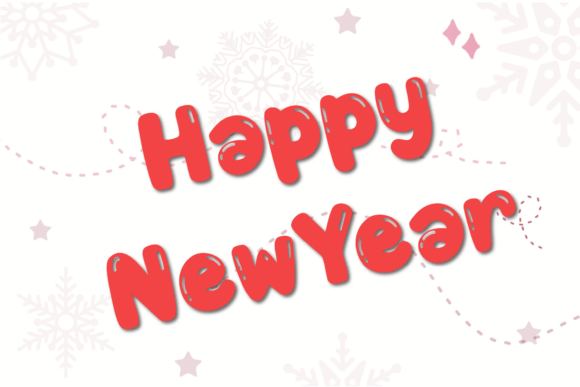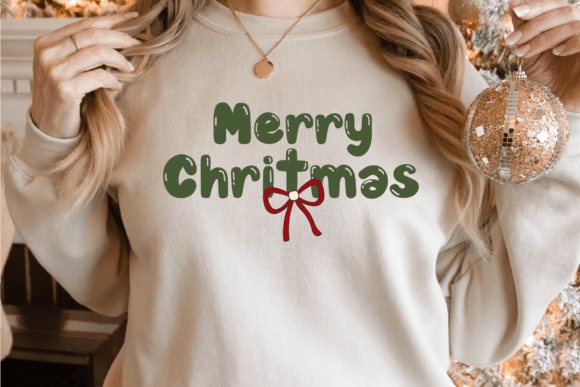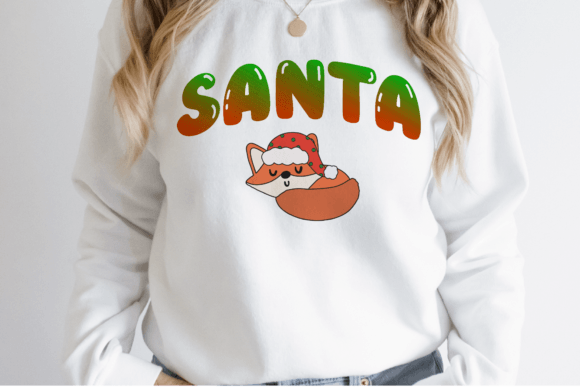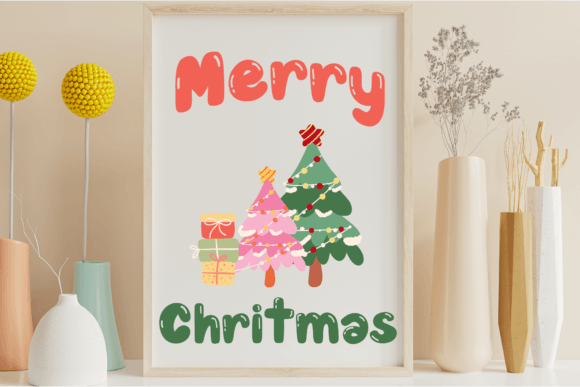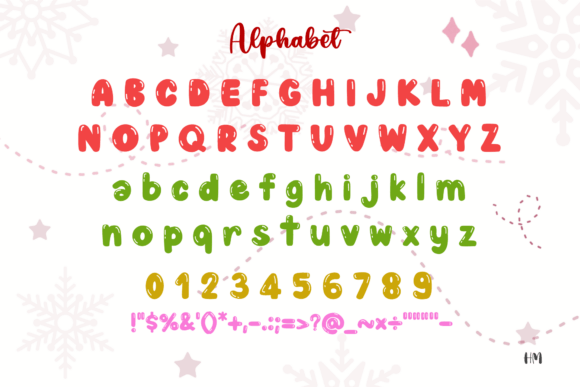
Introduction to Christmas Bookish Font
As a designer, you’ve probably found yourself stuck on a creative project, searching for the perfect font to bring your vision to life. It’s a moment we’ve all been there – staring at a blank canvas, trying to conjure up the perfect combination of style and substance. For me, that moment often comes during the holiday season, when I’m working on festive designs that capture the magic of Christmas. That’s when I discovered the Christmas Bookish Font – a game-changing resource that’s taken my designs to the next level.
With its unique blend of high-quality, handwritten, display, and decorative styles, the Christmas Bookish Font is a design treasure trove waiting to be explored. Whether you’re looking to create eye-catching invitations, logos, posters, or other festive projects, this font is sure to add a touch of holiday cheer to your work.
Key Features of Christmas Bookish Font
- High-quality design resource ideal for creative projects, such as holiday greeting cards, gift tags, and book covers.
- Unique, hand-drawn design with a transparent background, allowing for seamless integration into any design project.
- Includes a range of festive characters and symbols, perfect for adding a touch of holiday cheer to any design.
Honest Review: Christmas Bookish Font
- High-quality font design that captures the essence of Christmas
- Transparent background, making it easy to layer over other design elements
- Wide range of applications, from digital to print
- Perfect for book covers, invitations, and social media graphics
- Only available in a single font style (no variations)
- No additional characters or glyphs
- Not suitable for complex or multi-layered designs
Overall, I’m impressed with the Christmas Bookish Font. Its unique design and transparent background make it a valuable resource for designers. While it may not be perfect for every project, it’s a great addition to any design library. ✨
Tips for Getting the Most Out of Christmas Bookish Font
For optimal results, use the Christmas Bookish Font in conjunction with other design elements, such as graphics and images, to create a cohesive and visually appealing creative project.
The Christmas Bookish Font is ideal for holiday-themed projects, such as greeting cards, social media posts, and book covers. Its high-quality design and transparent background make it a versatile design resource for any creative project.
Alternatives to Christmas Bookish Font
Winter Wonderland
Winter Wonderland is a fun, playful font that’s perfect for design projects requiring a touch of whimsy. It’s ideal for creative projects like social media graphics, blog posts, and advertising campaigns. This font offers a transparent background and a more modern design compared to Christmas Bookish Font.